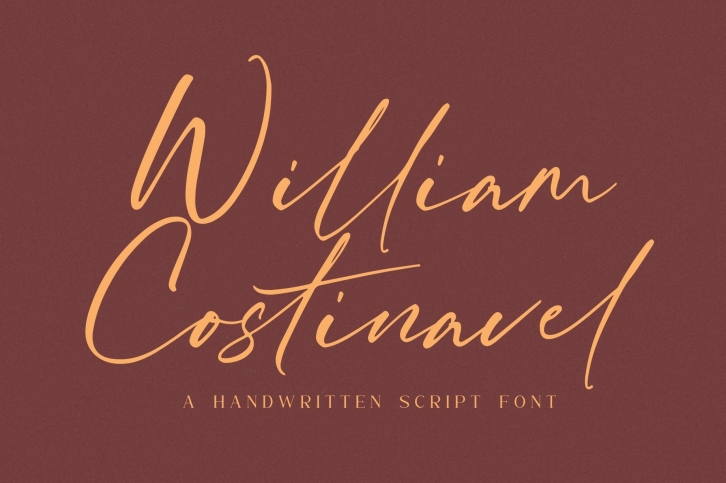
William Costinavel is a beautiful font that was designed by HanzelStudio. It's a great choice for designers and creatives who need such a font. It was released on August 1, 2020 and the file size is 20.34 MB. William Costinavel may give a more youthful, expressive and casual look to your project. It is a very beautiful, refined, elegant, and high-quality font.